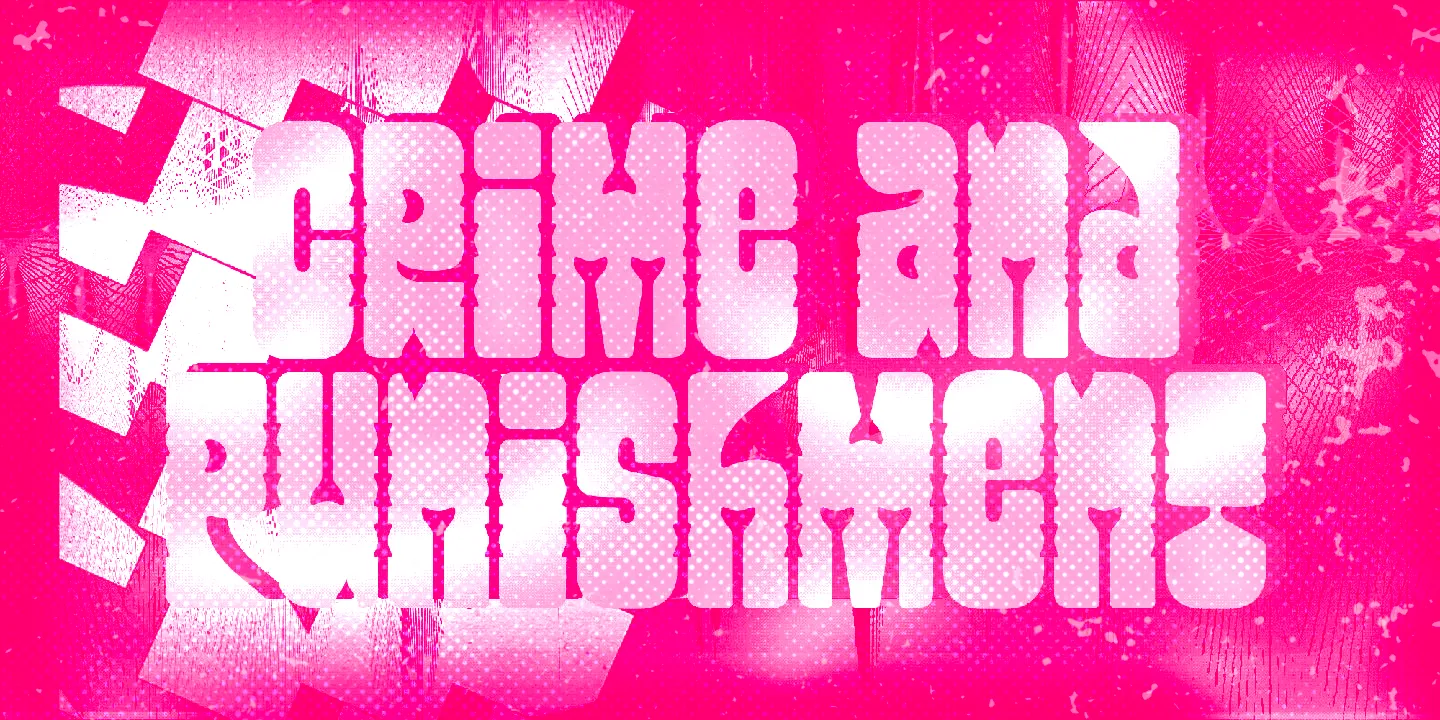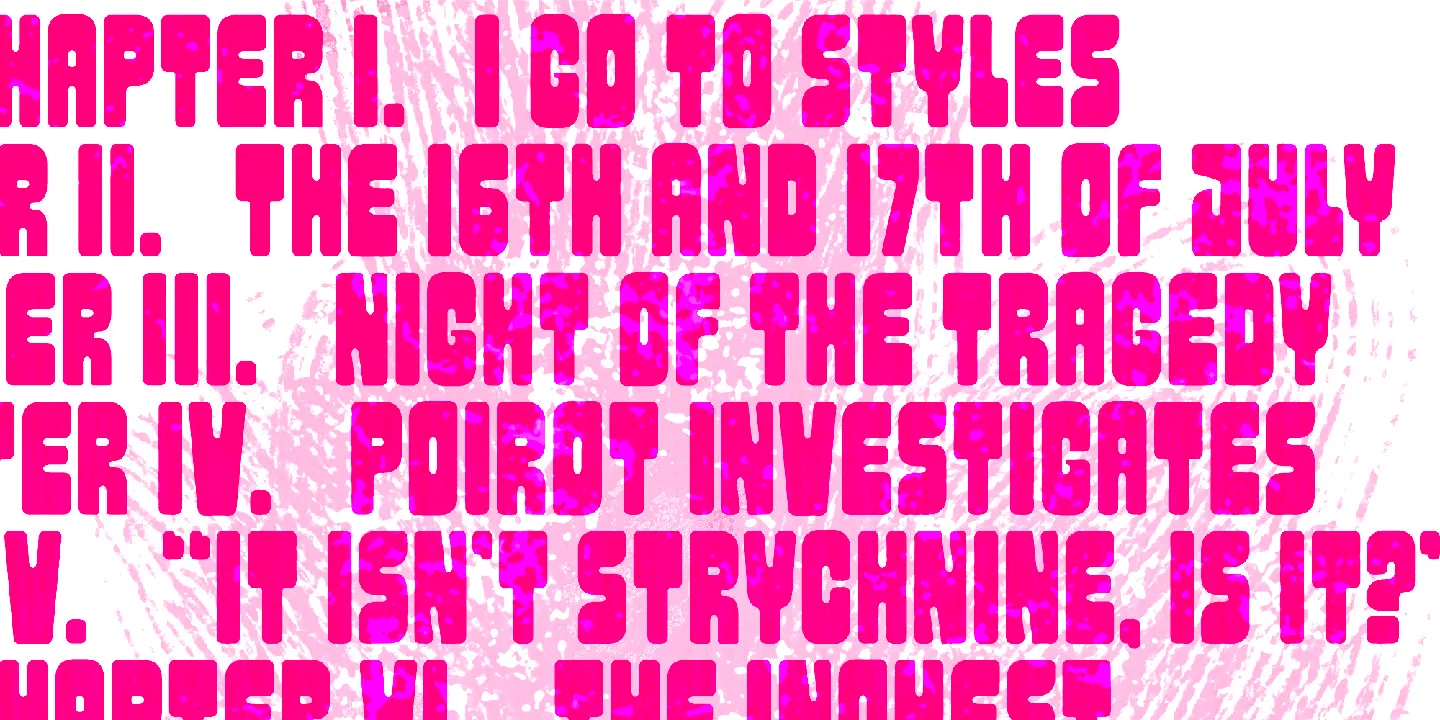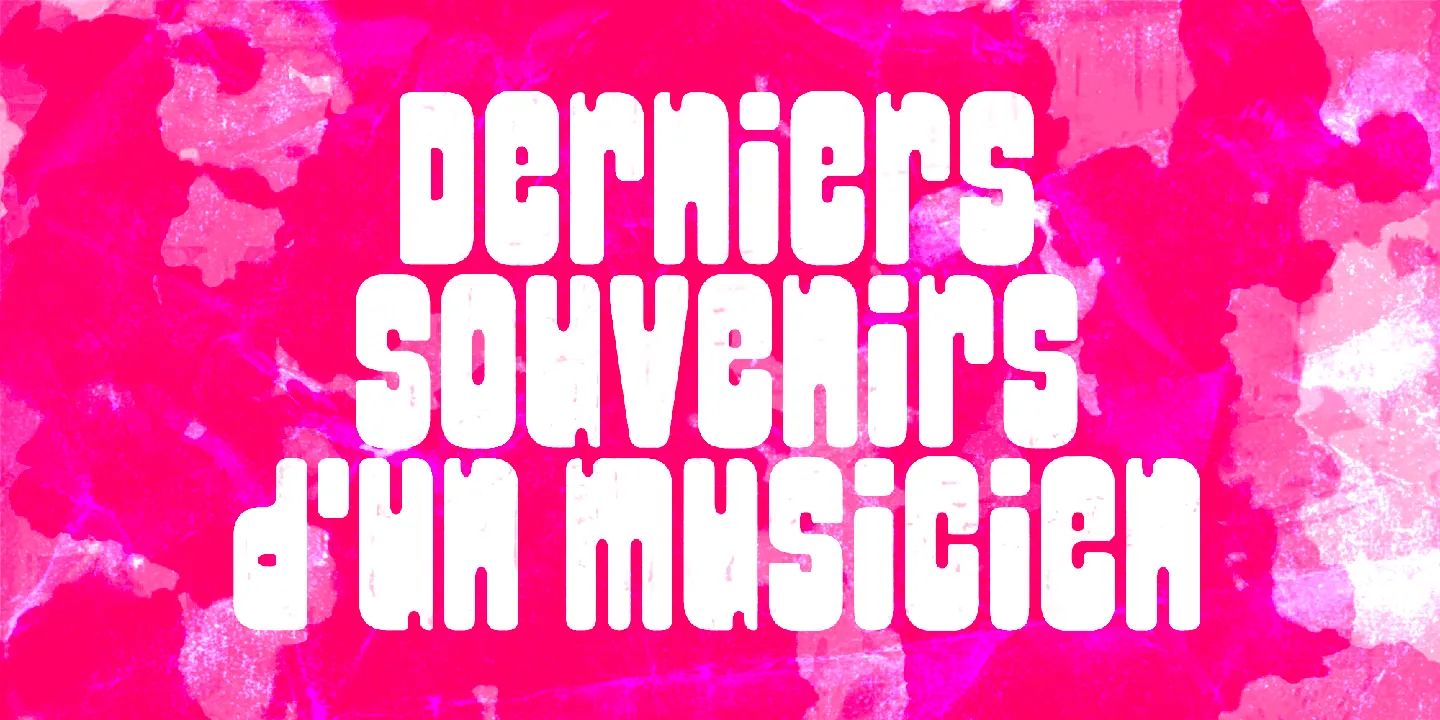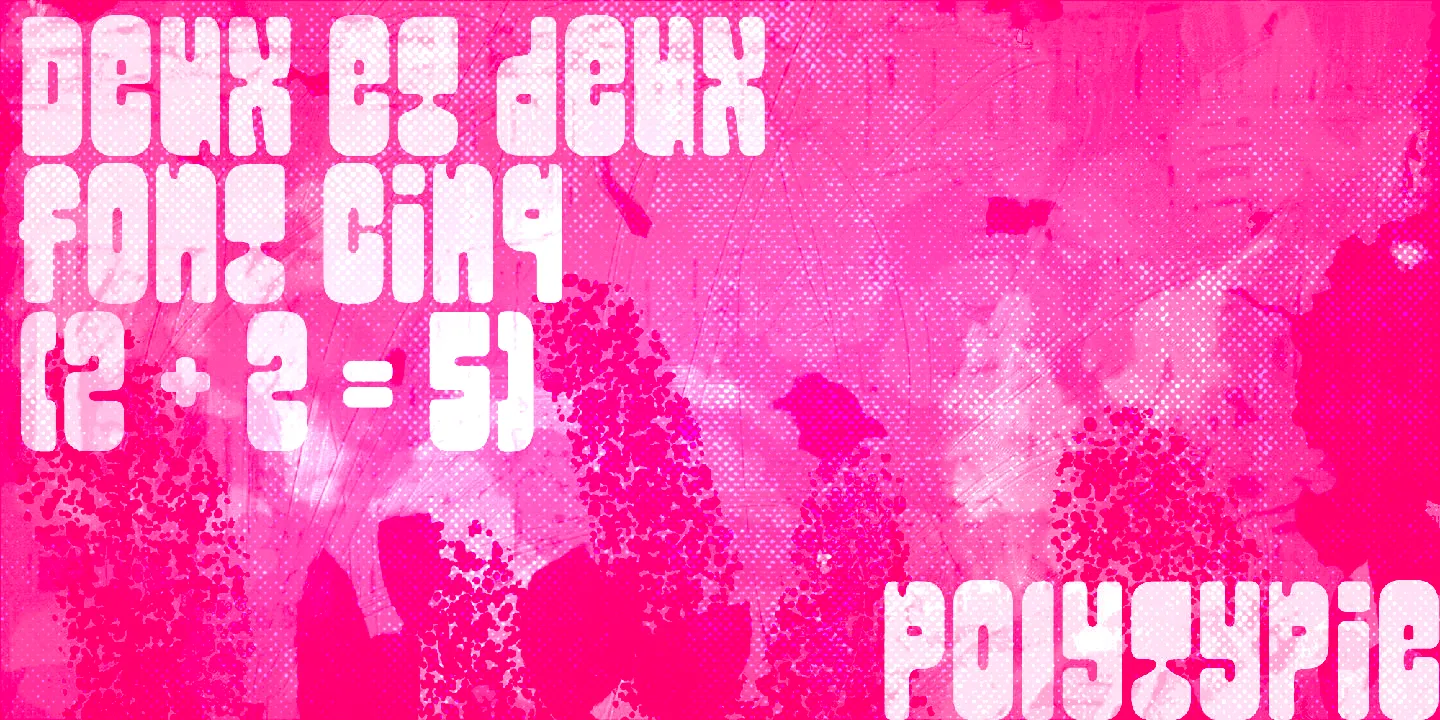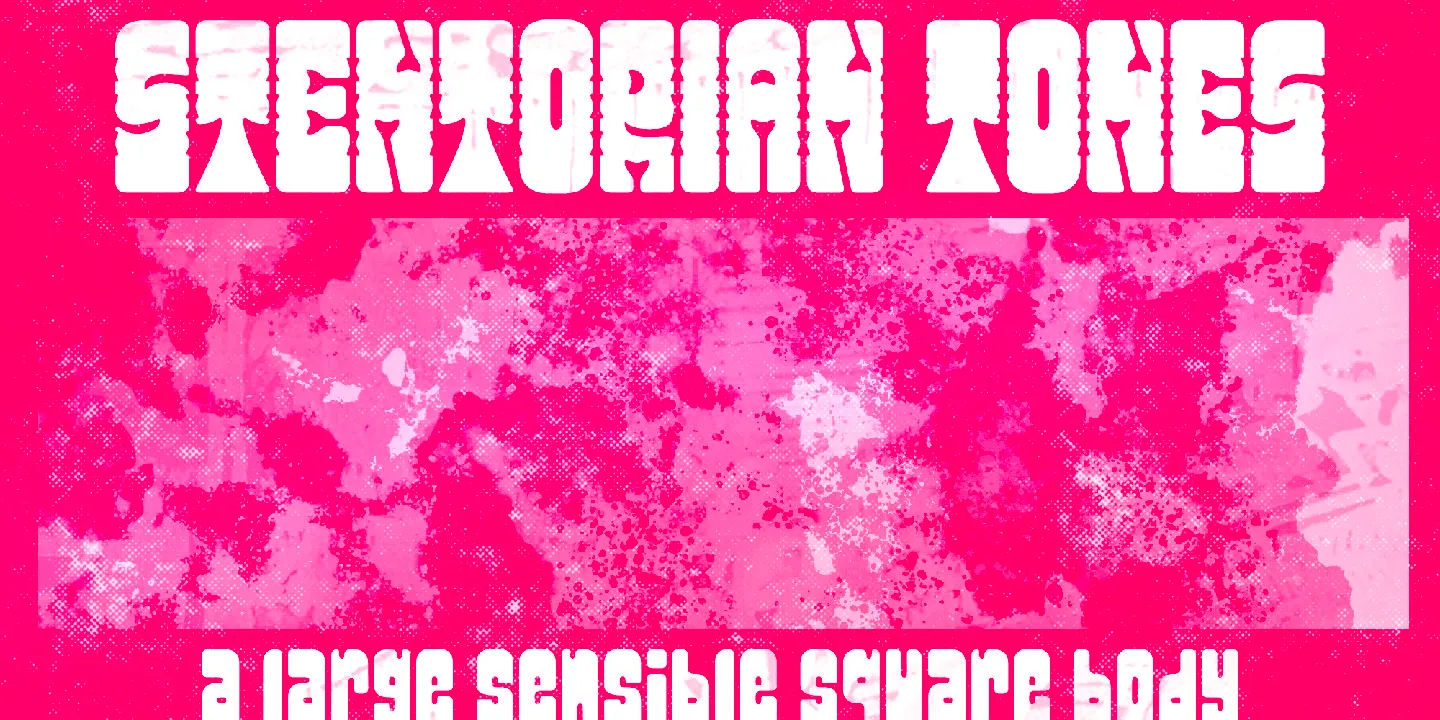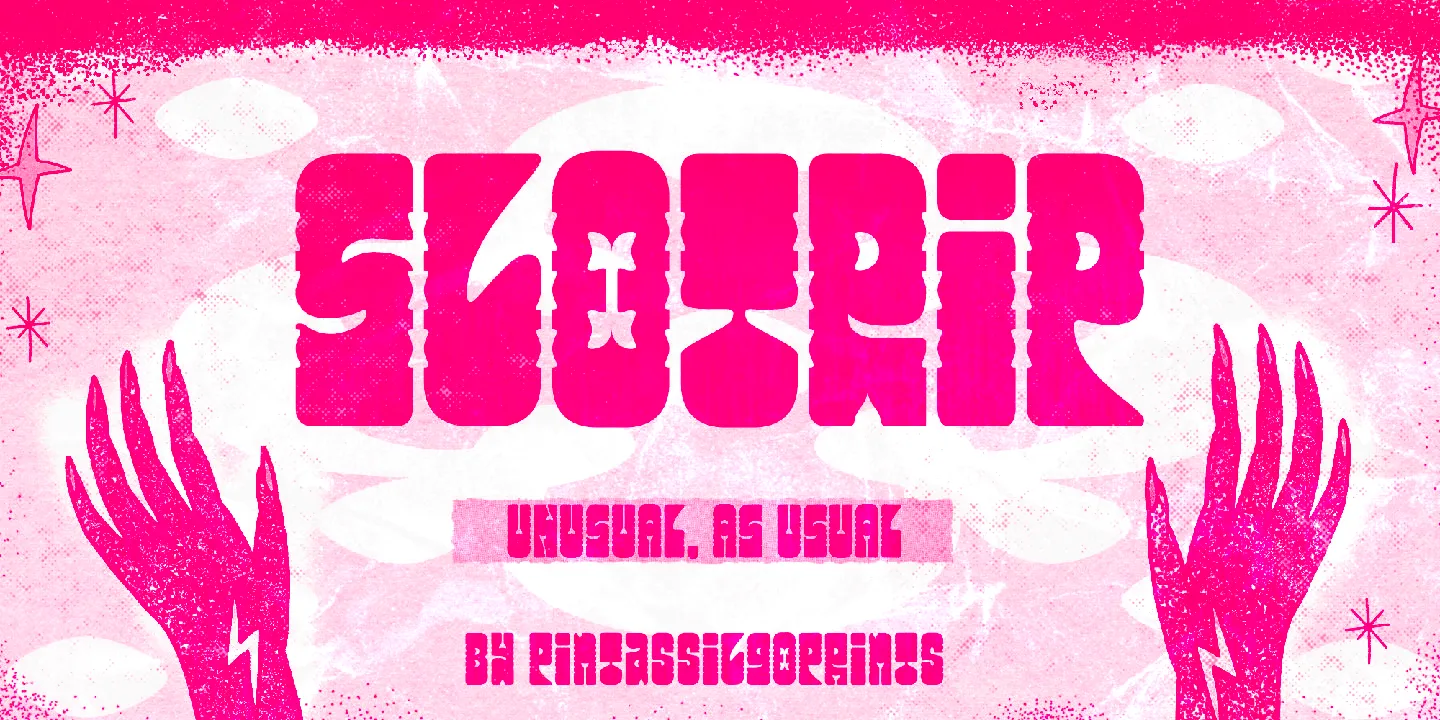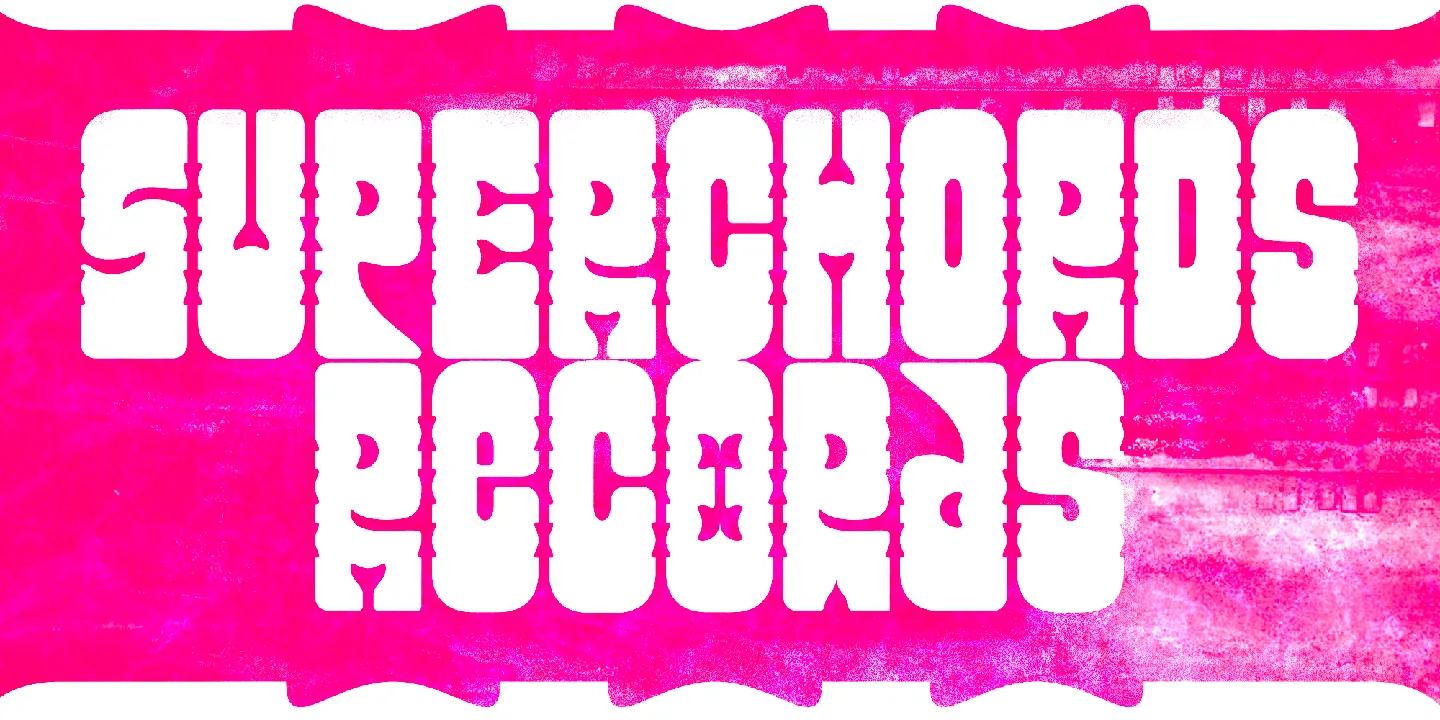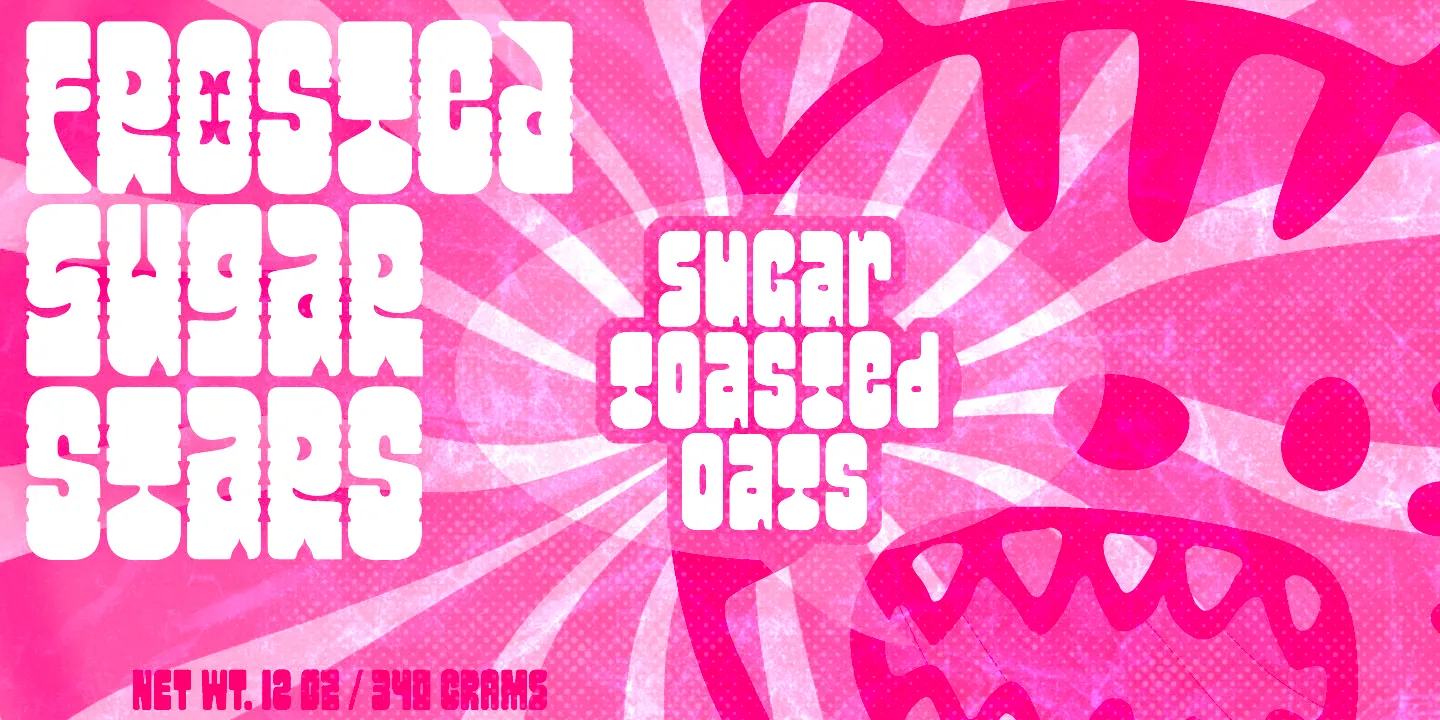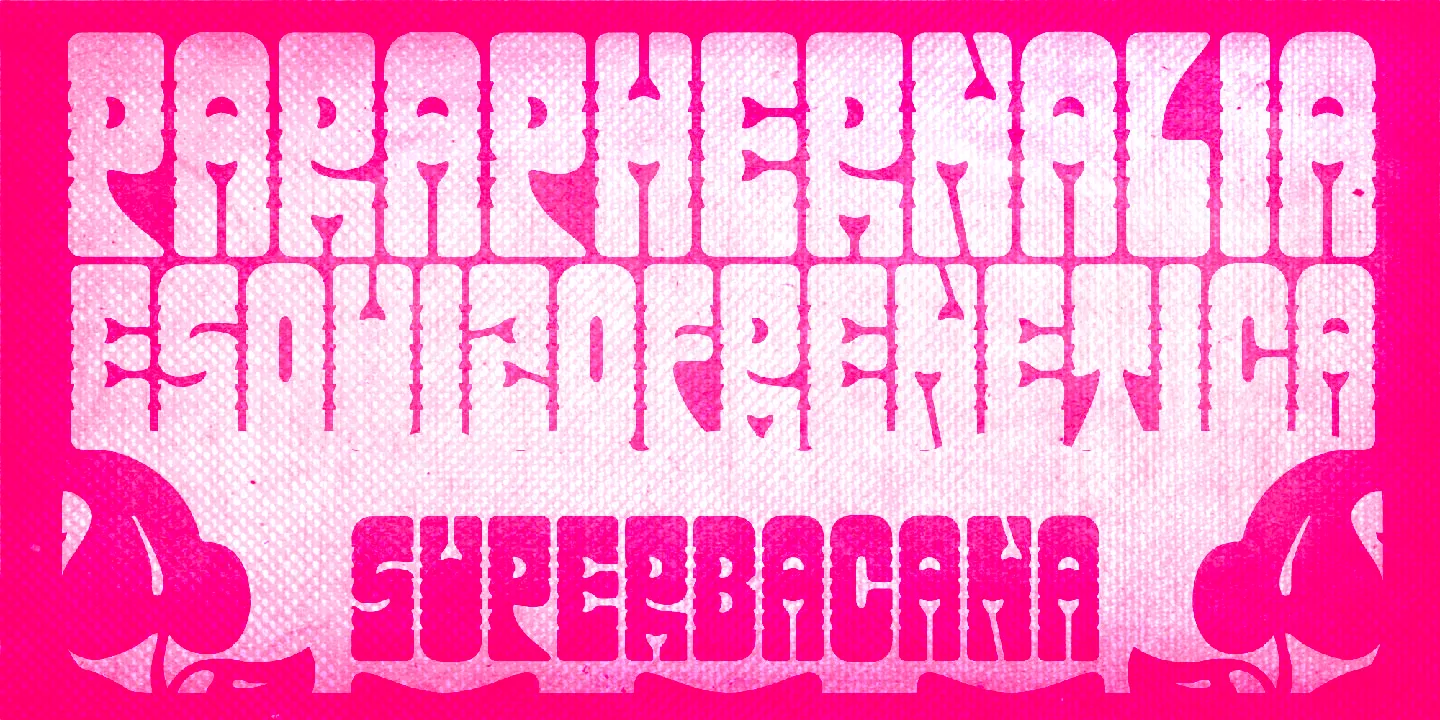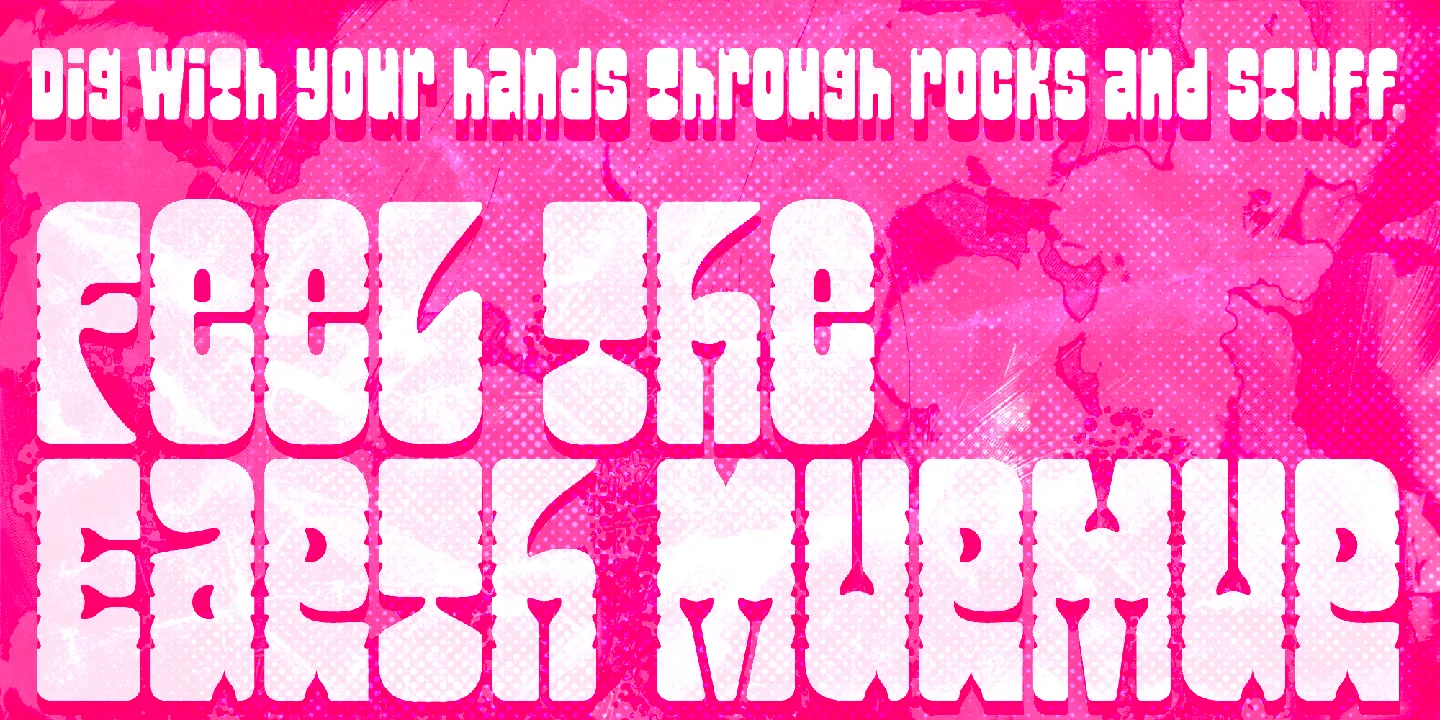
Slotrip
Slotrip is a boldly original and highly decorative unicase typeface design. The family has 2 styles, and both have a handy set of alternates. It sits somewhere in between the groovy vibe of the 1960s and something monumental or carved in stone. Suitable for creative and eye-catching display uses, such as movie posters, science fiction book covers, toy packaging, and graphic t-shirts, among others. Whatever the use, it won’t go unnoticed!